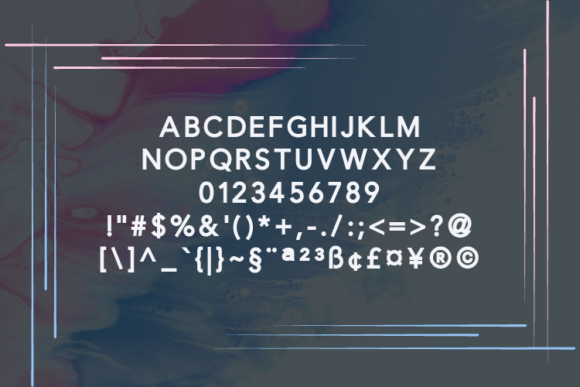
Gothic Extra Bold Font: Elevate Your Designs with Modern Elegance
In the realm of typography, the right font can make or break a design. For those seeking a modern and elegant sans serif font, Gothic Extra Bold is an exceptional choice. This versatile font is perfect for a wide range of projects, from headings to smaller body text, and pairs beautifully with script and handwritten fonts. In this article, we’ll delve into the world of Gothic Extra Bold, exploring its features, uses, and benefits for designers and crafters.
What is Gothic Extra Bold Font?
Gothic Extra Bold is a contemporary sans serif font that exudes sophistication and elegance. Its clean lines, precise curves, and bold weight make it an ideal choice for designers looking to add a touch of modernity to their work. This font is perfect for those who want to create a strong visual impact without sacrificing readability.
Key Features of Gothic Extra Bold Font
- Modern and Elegant Design: Gothic Extra Bold boasts a sleek and refined design, making it perfect for projects that require a touch of sophistication.
- Sans Serif: The font’s sans serif design ensures that it remains clean and uncluttered, even at smaller font sizes.
- Bold Weight: The extra bold weight of the font makes it perfect for headings, titles, and emphasis text.
- Versatile: Gothic Extra Bold can be used for a wide range of projects, from digital designs to print materials.
Pairing Gothic Extra Bold with Other Fonts
One of the key benefits of Gothic Extra Bold is its ability to pair well with other fonts, particularly script and handwritten fonts. This versatility allows designers to create visually appealing and harmonious font combinations that elevate their designs. Some popular font pairing options include:
- Script Fonts: Pair Gothic Extra Bold with elegant script fonts, such as Pacifico or Great Vibes, to create a beautiful contrast between bold and cursive.
- Handwritten Fonts: Combine Gothic Extra Bold with handwritten fonts, like Alex Brush or Carolyna Pro, to add a touch of warmth and personality to your designs.
Using Gothic Extra Bold Font in Your Projects
Gothic Extra Bold is an incredibly versatile font that can be used in a wide range of projects, including:
- Headings and Titles: The font’s bold weight makes it perfect for headings and titles, where you want to grab the reader’s attention.
- Body Text: Gothic Extra Bold can also be used for smaller body text, providing a clean and readable format for your content.
- Digital Designs: The font is suitable for digital designs, including website headers, social media graphics, and email marketing materials.
- Print Materials: Gothic Extra Bold can also be used for print materials, such as brochures, flyers, and business cards.
Benefits of Using Gothic Extra Bold Font
So, why choose Gothic Extra Bold for your next project? Here are just a few benefits of using this exceptional font:
- Improved Readability: The font’s clean design and bold weight ensure that your text remains readable, even at smaller font sizes.
- Enhanced Visual Appeal: Gothic Extra Bold adds a touch of modern elegance to your designs, making them more visually appealing.
- Versatility: The font’s versatility allows you to use it for a wide range of projects, from digital designs to print materials.
In conclusion, Gothic Extra Bold is an exceptional sans serif font that offers a unique blend of modern elegance and versatility. Its clean design, bold weight, and ability to pair well with other fonts make it an ideal choice for designers and crafters. Whether you’re working on a digital design or print material, Gothic Extra Bold is sure to elevate your project and leave a lasting impression.